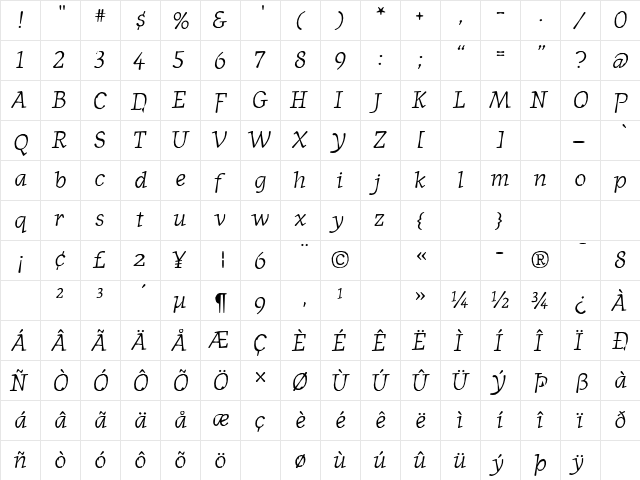
JournalItalic Regular Font Preview
JournalItalic Regular
JournalItalic Regular Font Details
Design Context for JournalItalic Typeface
JournalItalic is a composed and adaptable typeface that performs quietly and consistently across a wide range of design contexts. Its italic angle brings a sense of urgency and motion to the letterforms.
Pro Tip: Try JournalItalic for annotation and caption copy alongside an upright companion — the contrast in angle creates a dynamic but ordered typographic system.